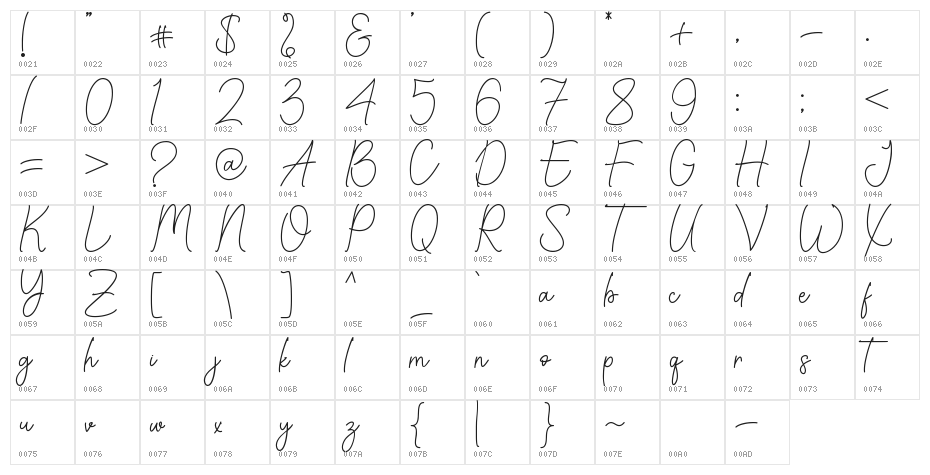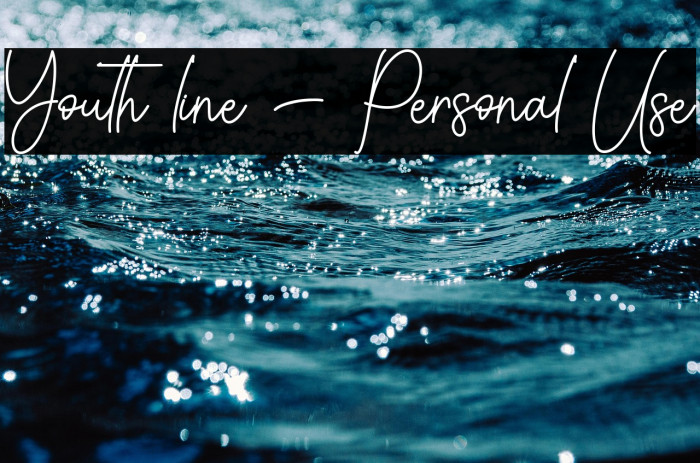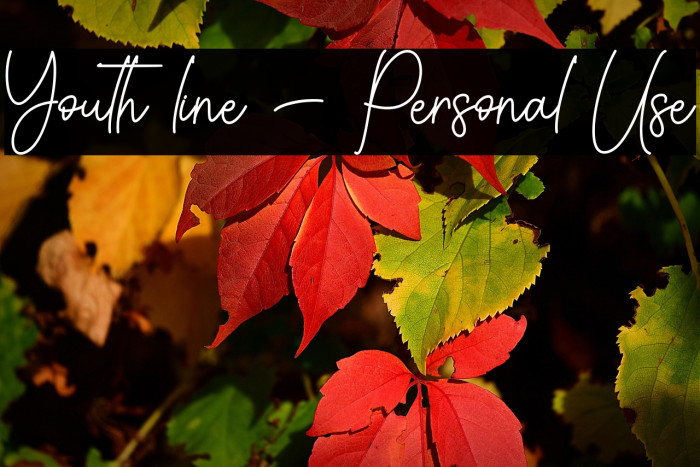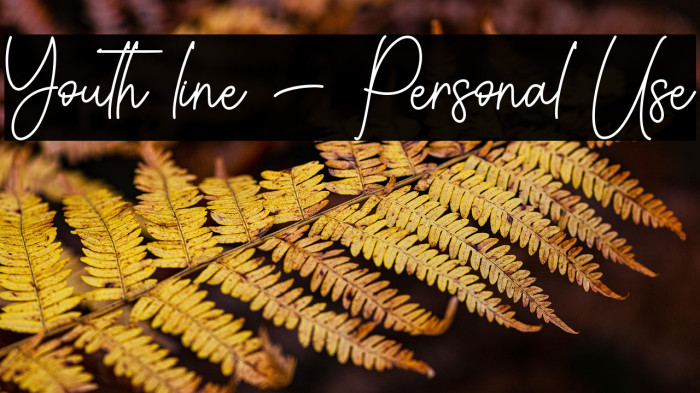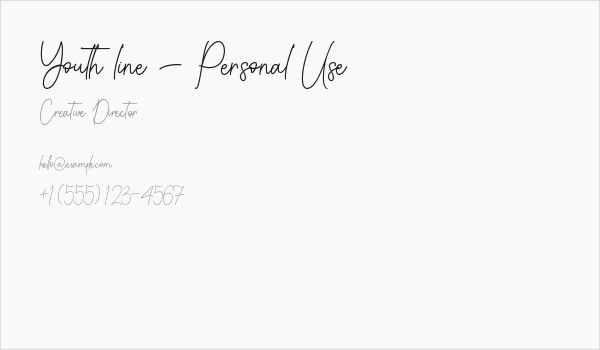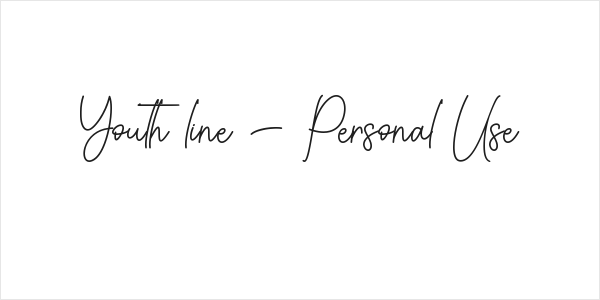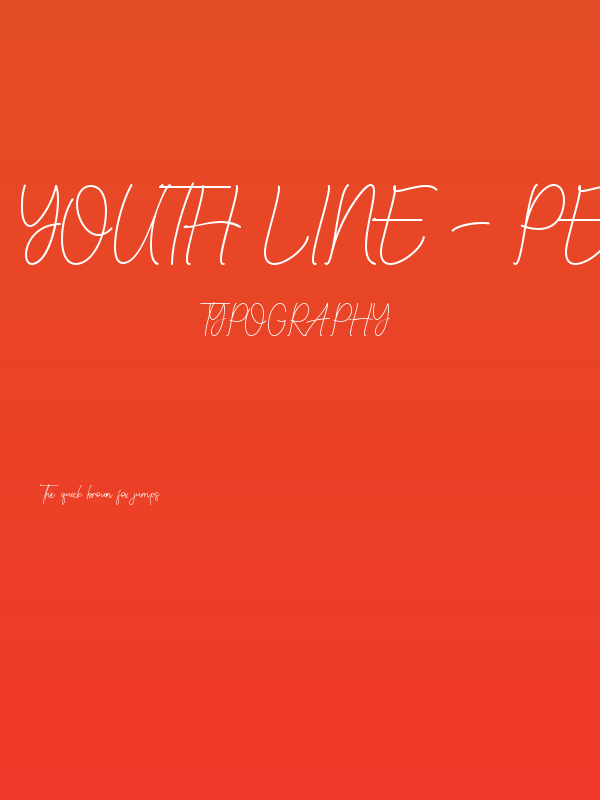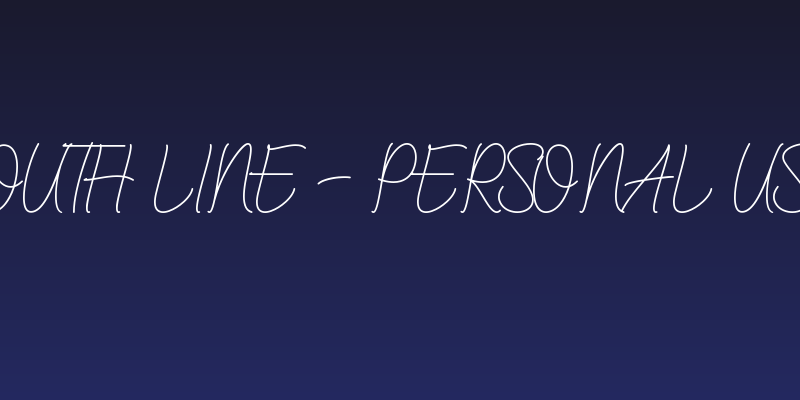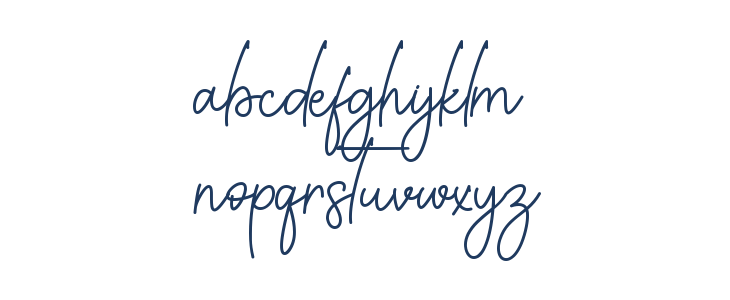
Youth line - Personal Use Font
Youth line - Personal Use Description
This font exhibits a lively and flowing handwritten style, characterized by its elegant and elongated letterforms. The uppercase letters are tall and slender, with a slight slant that adds a dynamic feel. The lowercase letters maintain a consistent flow, featuring smooth curves and loops that enhance its handwritten appearance. The numerals are distinct and maintain the same fluidity, ensuring readability. Special characters are creatively integrated, maintaining the overall aesthetic. This font's playful yet sophisticated style makes it versatile for various design projects.